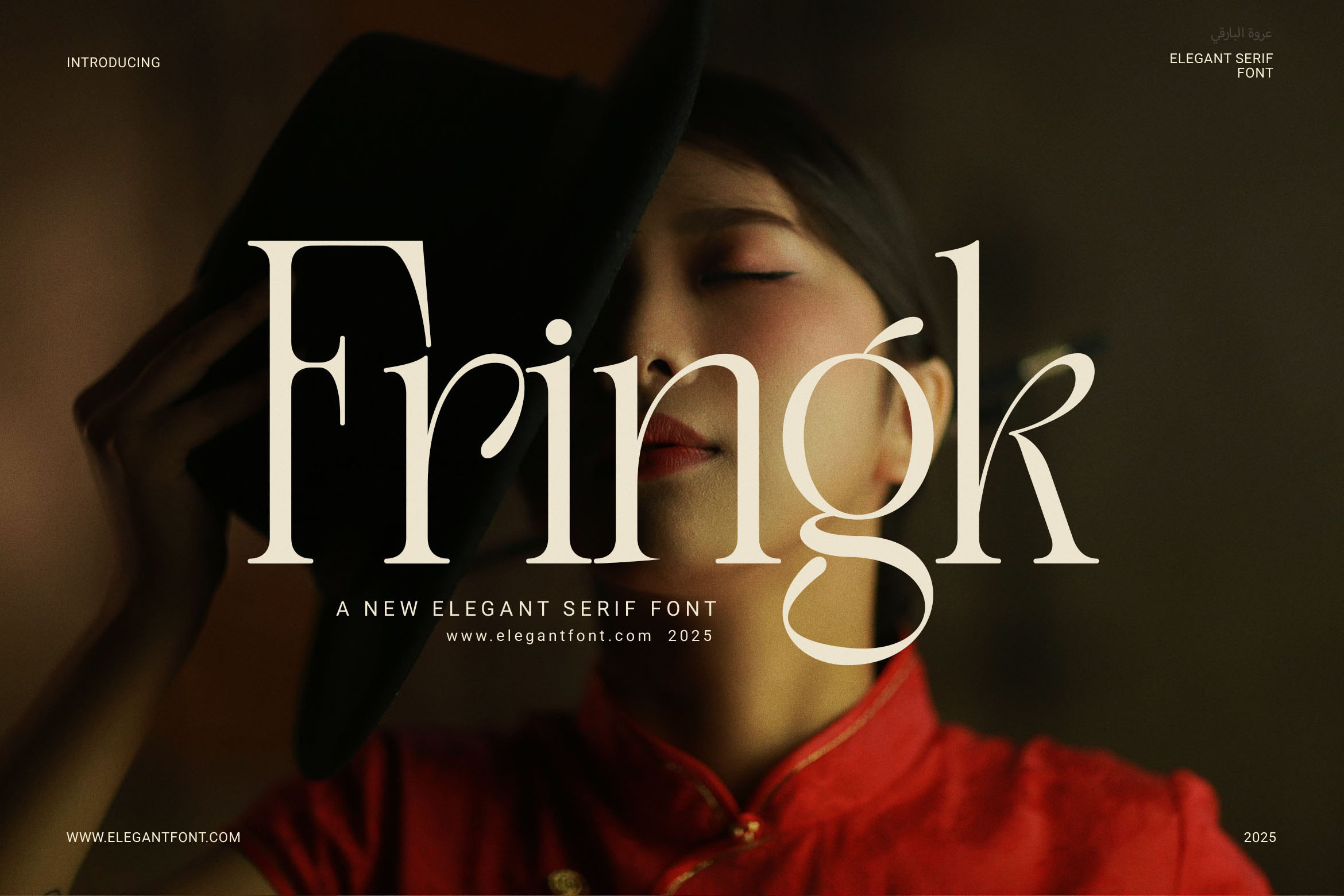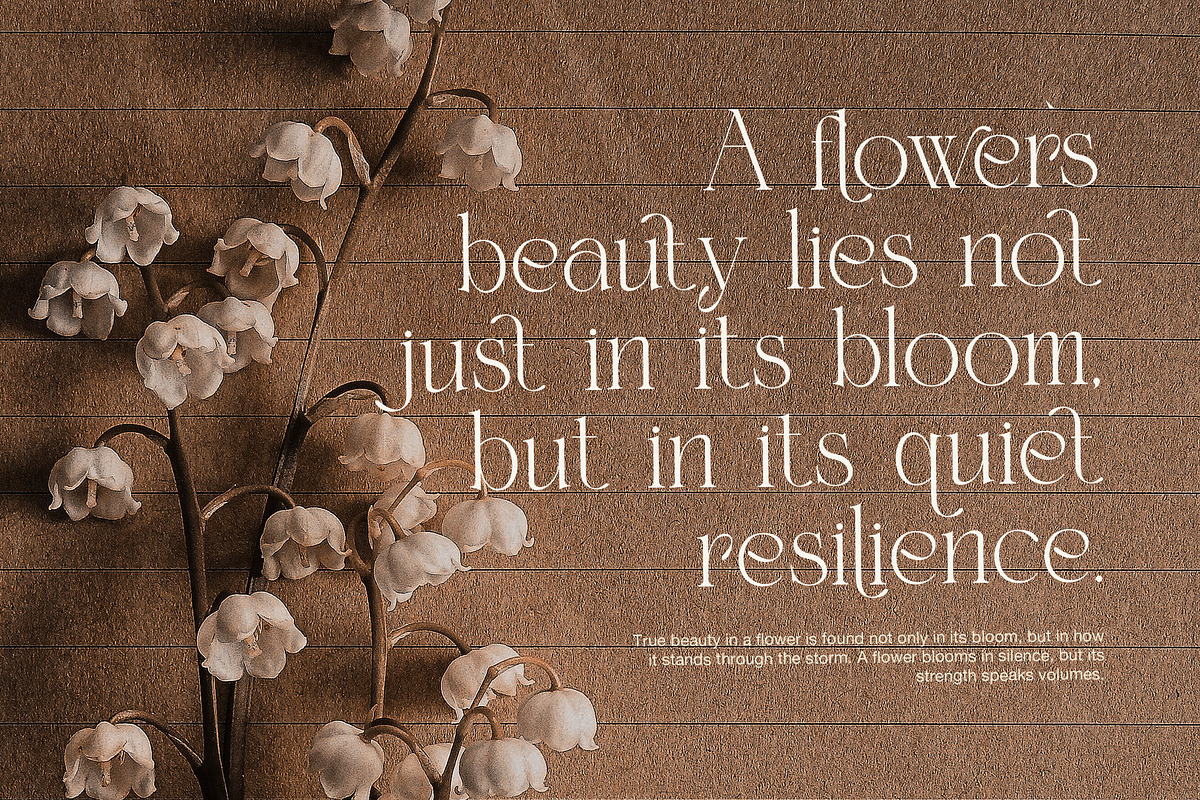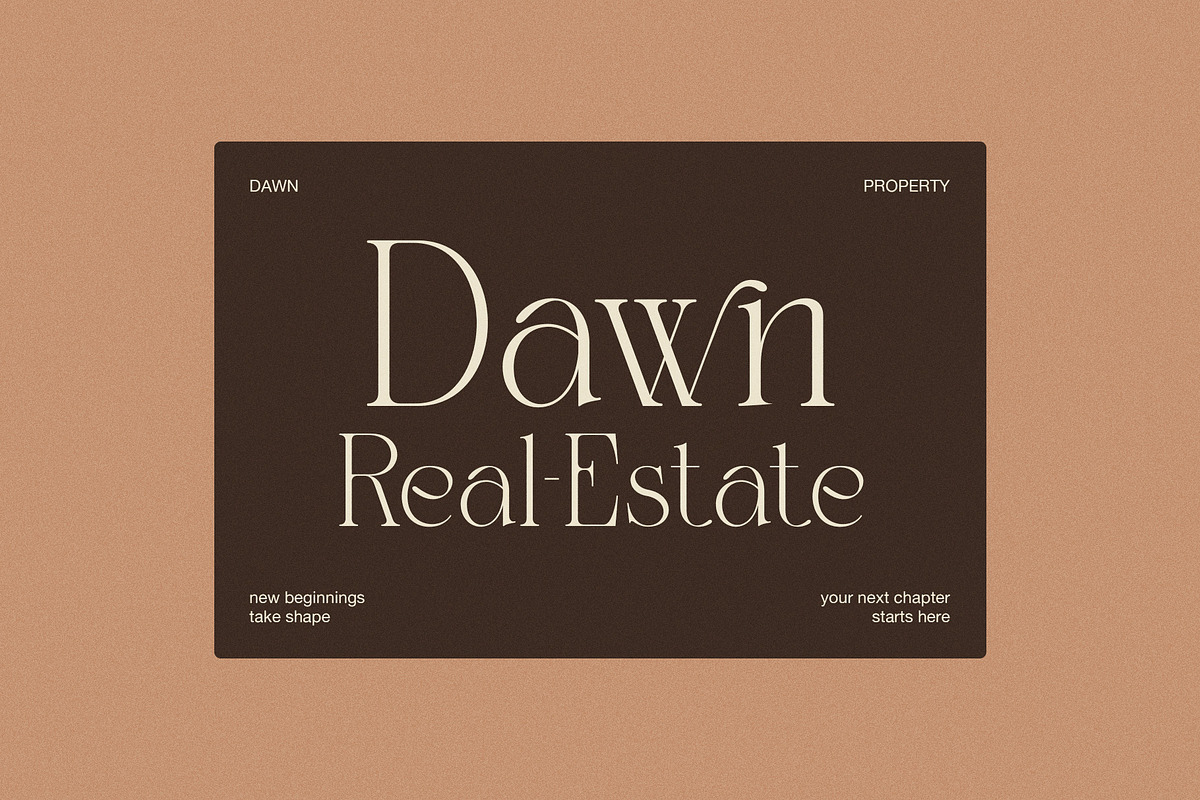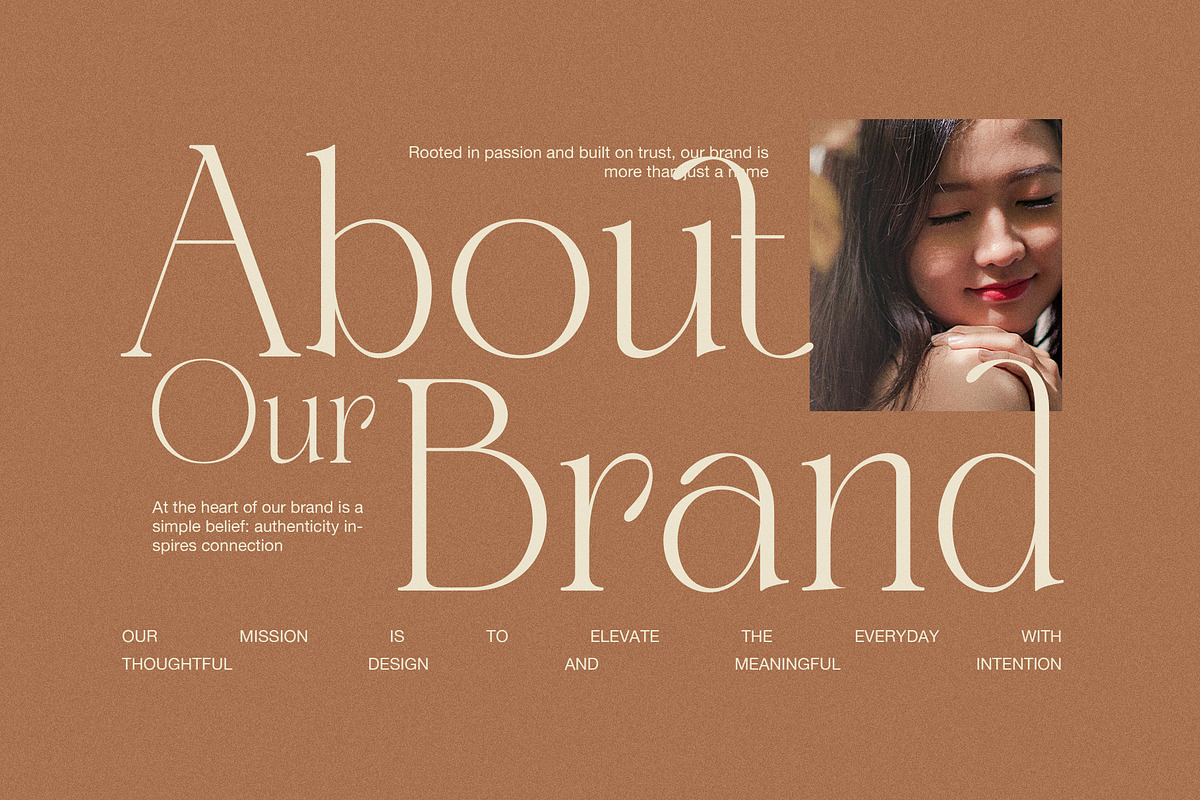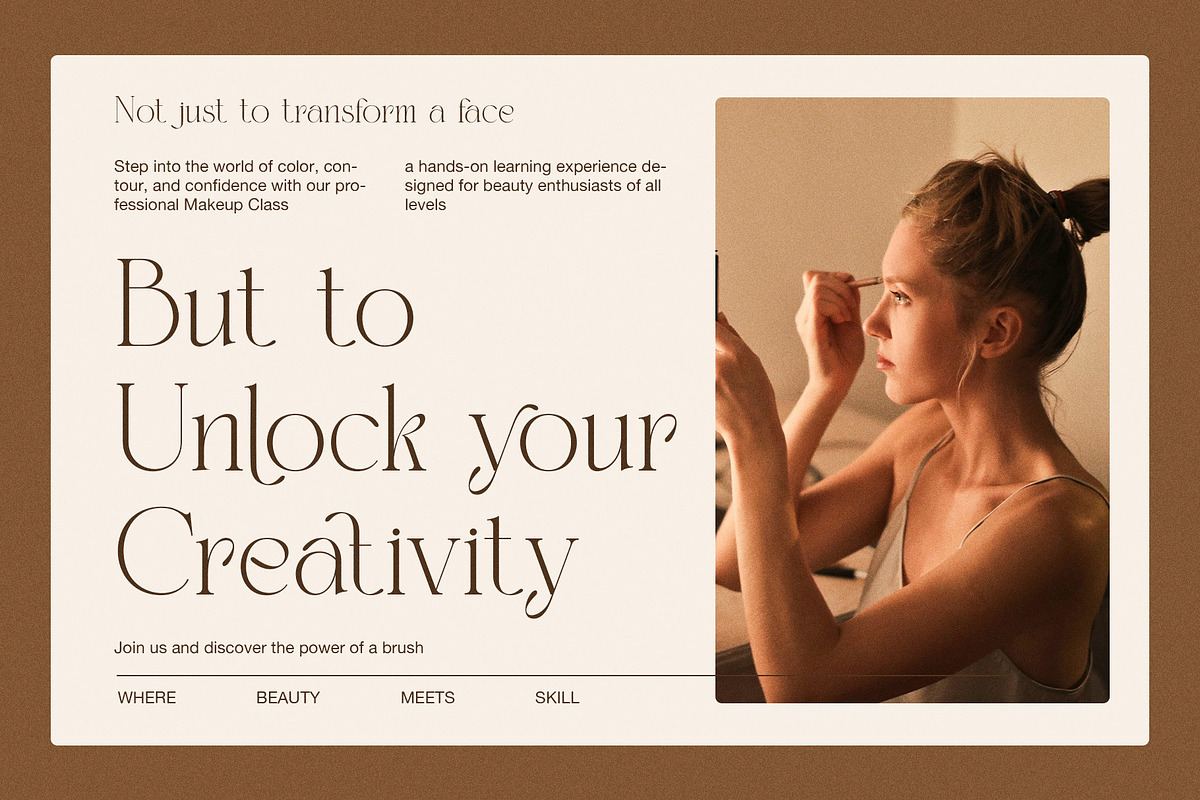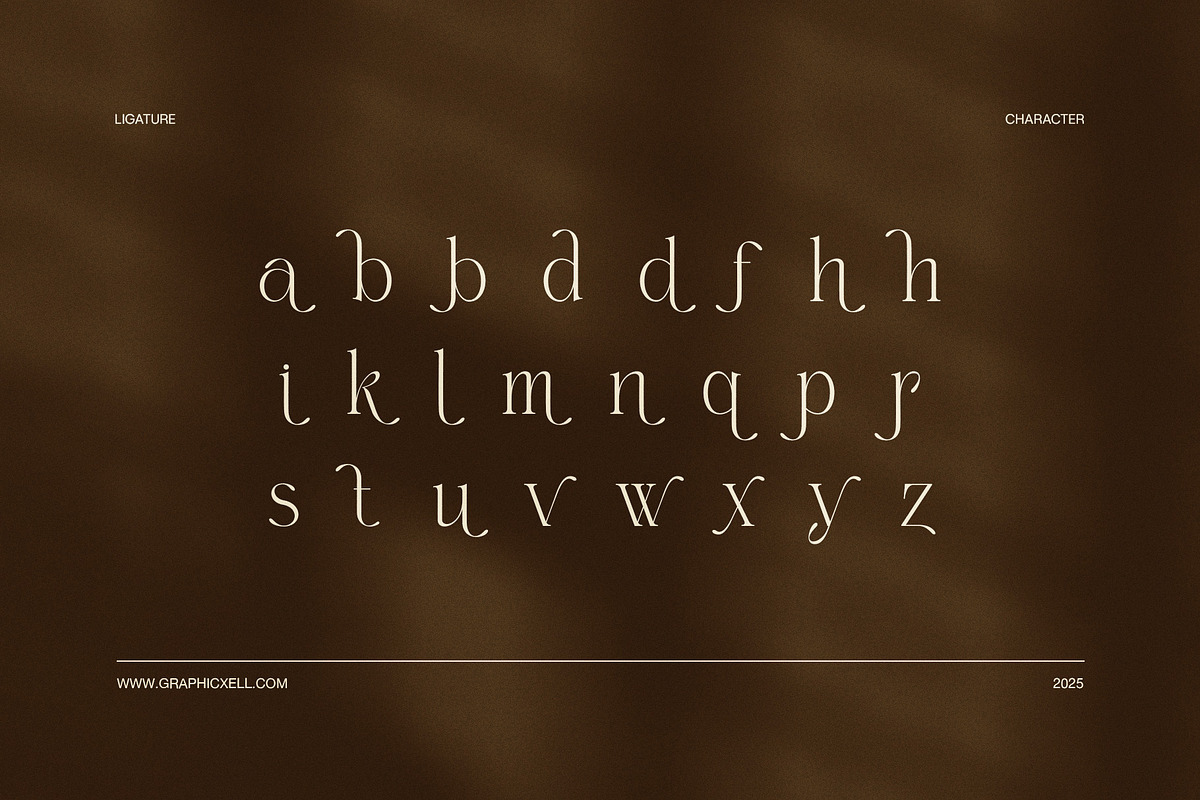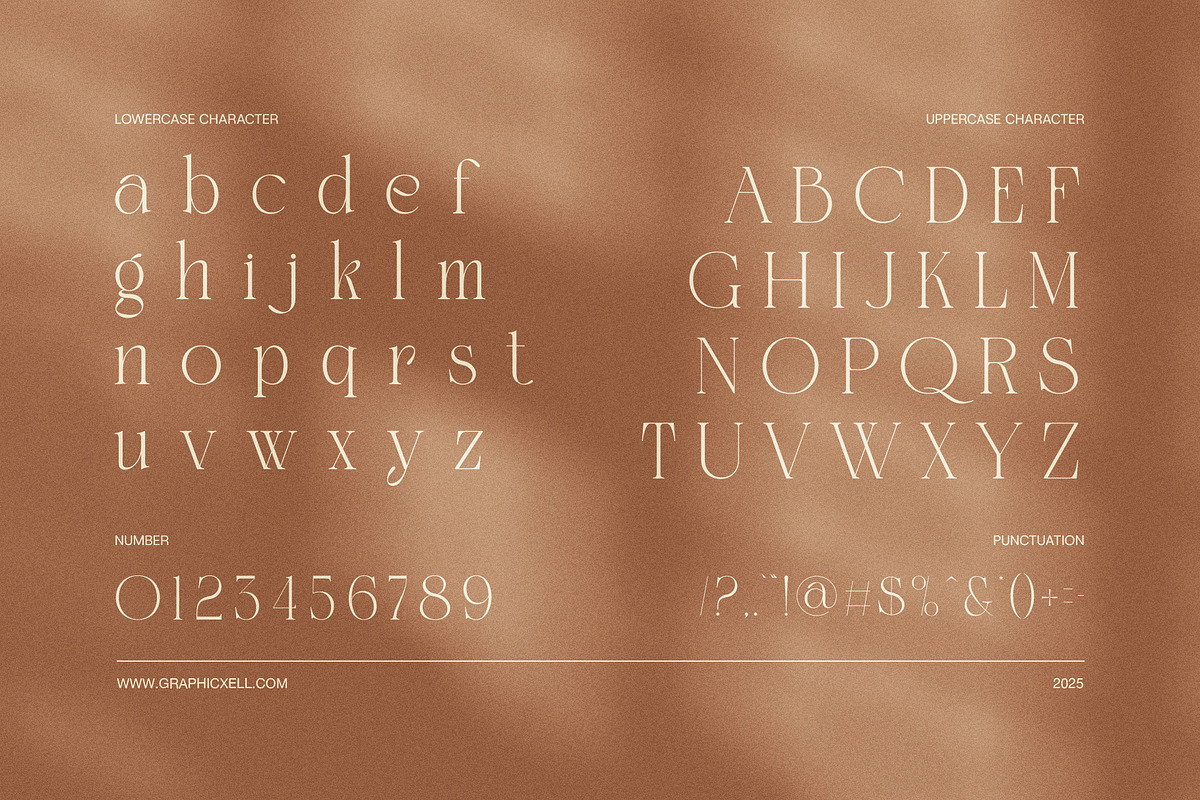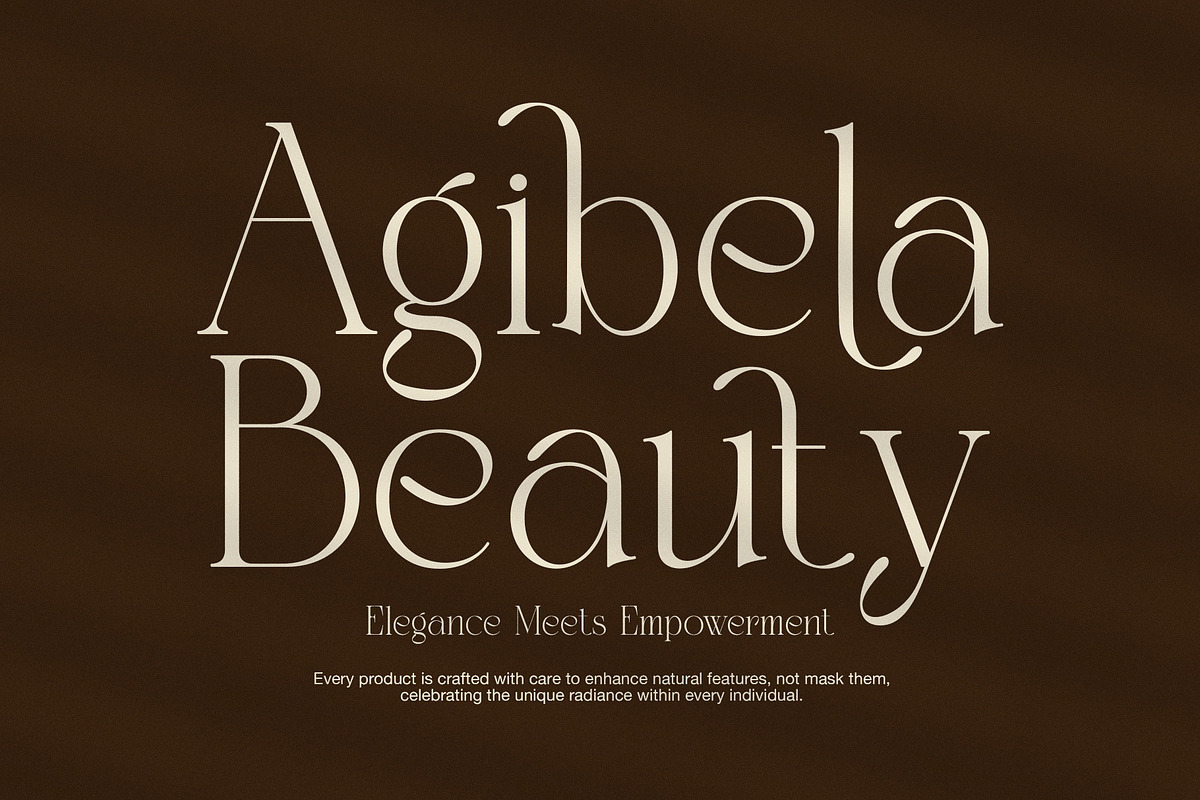
Fringk Luxury Serif Font
Fringk Serif Font is a refined luxury serif display typeface crafted for designers, brands, and creatives who seek elegance, sophistication, and timeless charm. With its sharp serifs, stylish contrast, and clean strokes, this font lends itself perfectly to projects like wedding invites, high‑end branding, editorial design, packaging, logos, and more. It combines classic serif warmth with modern display features, adding personality without losing legibility.
In addition, this font offers:
Elegant serif details — sharp terminals and balanced contrast that elevate any title or headline
Stylish display presence — perfect for large sizes, letting your design stand out
Versatile usage — works well on digital screens, print media, packaging, and logos
Polished letterforms — uppercase, lowercase characters, numerals and punctuation that flow smoothly
Because of its luxury feel, Fringk Serif is ideal for branding that demands class, boutique businesses, premium goods, and editorial pieces. When you want to make a bold yet refined statement, this typeface brings grace without being overly ornate.
Moreover, the font supports design flexibility. You’ll find it easy to pair with script fonts, minimal sans serif fonts, or clean geometric styles. Use it for headings, sub‑titles, quotes, or packaging mock‑ups. It will also look stunning on wedding stationery, invitations, business cards, magazine covers, fashion lookbooks, and upscale product labels.
What sets Fringk Serif apart is its balance: it feels upscale but remains readable; it carries personality but doesn’t overwhelm. Transition smoothly between creative projects: from logos to editorial layouts to social media graphics. Designers will appreciate its high contrast, sharp serif finds, and clean curves that offer both style and practicality.
In short, if you're searching for a font that conveys elegance, luxury, and classic beauty, Fringk Serif Font is your choice. Choose it when you want your designs to speak of prestige.